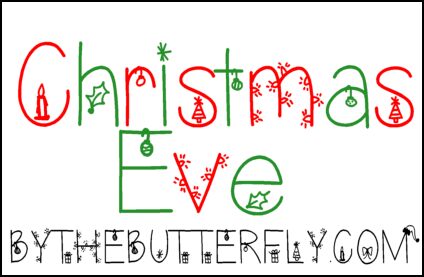
Christmas Eve by Bythebutterfly.com is a free Christmas display font with tall, loose letters decorated like a string of handmade ornaments. Baubles, gifts, holly sprigs, stars, and tiny fir trees appear inside or around the strokes, and the uneven lines keep the alphabet cheerful and informal.
Packaging gives these built-in seasonal drawings a useful role on gift tags, confectionery boxes, and advent calendars because the wording can double as illustration. It is especially convincing for Christmas party invitations, where the hanging baubles and wrapped presents already supply much of the festive decoration.